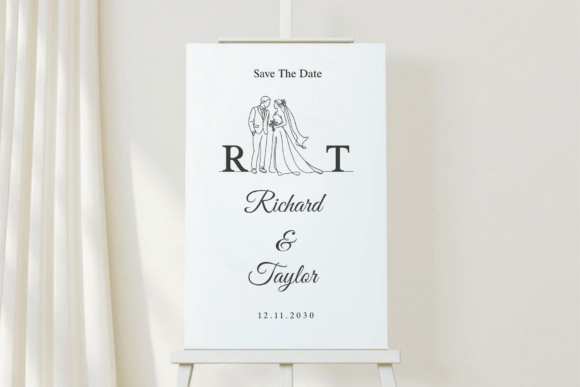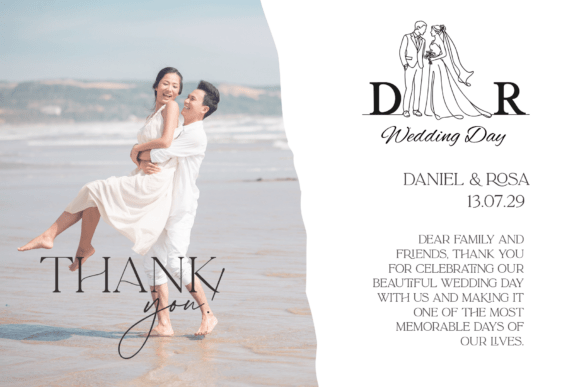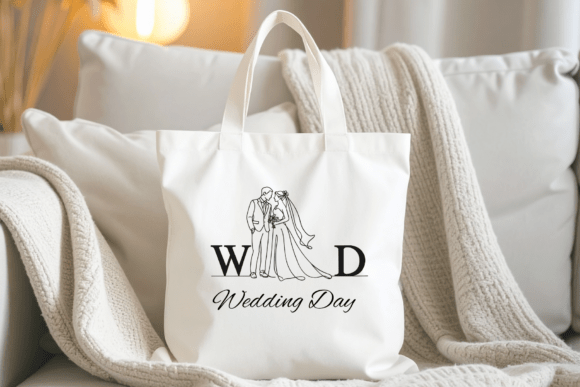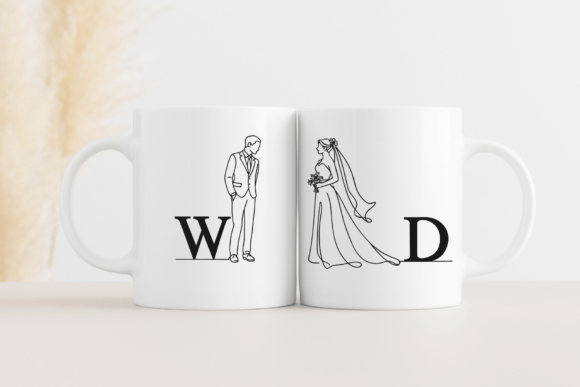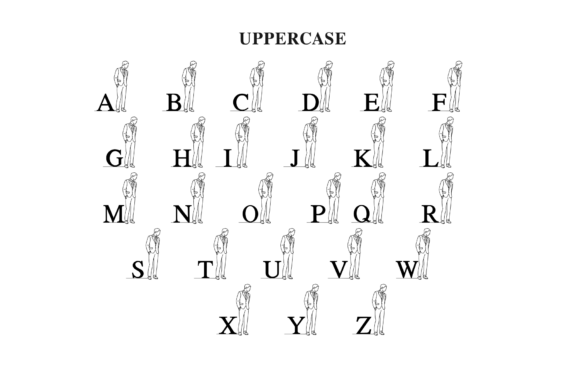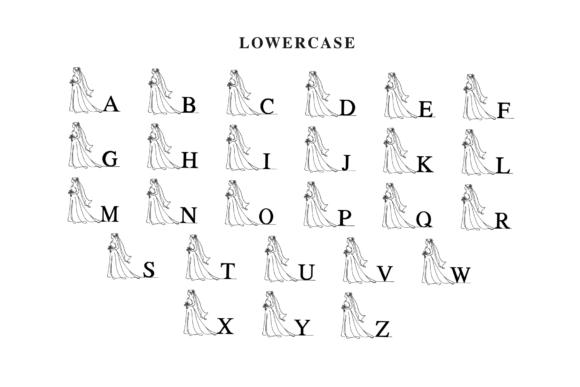
Elegant Bride Groom Monogram Font: Elevate Your Wedding Designs with Timeless Romance
Are you a designer, crafter, or small business owner looking to create stunning wedding designs that exude luxury and romance? Look no further than the Elegant Bride Groom Monogram Font, a beautiful and timeless alphabet designed specifically for couples. This elegant monogram set combines stylish uppercase groom illustrations with graceful lowercase bride illustrations, paired with sophisticated serif letters from A to Z.
A Perfect Blend of Style and Romance
The Elegant Bride Groom Monogram Font is the perfect blend of style and romance, making it ideal for wedding invitations, acrylic signs, couple logos, mugs, T-shirts, gift boxes, stickers, and wedding decorations. The clean line art style of this monogram set makes it versatile enough to complement both modern and classic wedding themes, ensuring that your designs are always on-trend and visually appealing.
Key Features of the Elegant Bride Groom Monogram Font
- Stylish Uppercase Groom Illustrations: The uppercase letters feature stylish illustrations of the groom, adding a touch of masculinity and sophistication to your designs.
- Graceful Lowercase Bride Illustrations: The lowercase letters showcase elegant illustrations of the bride, bringing a sense of femininity and romance to your creations.
- Elegant Serif Letters: The monogram set includes elegant serif letters from A to Z, providing a classic and timeless feel to your designs.
- Clean Line Art Style: The clean and simple line art style of this monogram set makes it easy to use and versatile enough to fit various wedding themes and design styles.
The Elegant Bride Groom Monogram Font offers endless design possibilities for wedding-related projects. Here are a few ideas to get you started:
- Wedding Invitations: Create beautiful and elegant wedding invitations that set the tone for the special day.
- Couple Logos: Design stunning couple logos that capture the essence of the couple’s love story.
- Acrylic Signs: Use the monogram set to create eye-catching acrylic signs that add a personal touch to wedding decorations.
- Mugs and T-Shirts: Design personalized mugs and T-shirts that make thoughtful gifts for the happy couple.
- Gift Boxes and Stickers: Add a touch of elegance to gift boxes and stickers with the Elegant Bride Groom Monogram Font.
Why Choose the Elegant Bride Groom Monogram Font?
As a designer, crafter, or small business owner, you want to create designs that stand out from the crowd and exceed your clients’ expectations. Here are a few reasons why the Elegant Bride Groom Monogram Font is the perfect choice for your wedding designs:
- Unique and Exclusive: The Elegant Bride Groom Monogram Font is a one-of-a-kind alphabet that will give your designs a distinctive touch.
- Easy to Use: The clean line art style and simple illustrations make it easy to use and incorporate into your designs.
- Versatile: The monogram set is versatile enough to fit various wedding themes and design styles, ensuring that your designs are always on-trend.
- Luxury and Romantic: The Elegant Bride Groom Monogram Font exudes luxury and romance, making it perfect for couples who want to create unforgettable wedding designs.